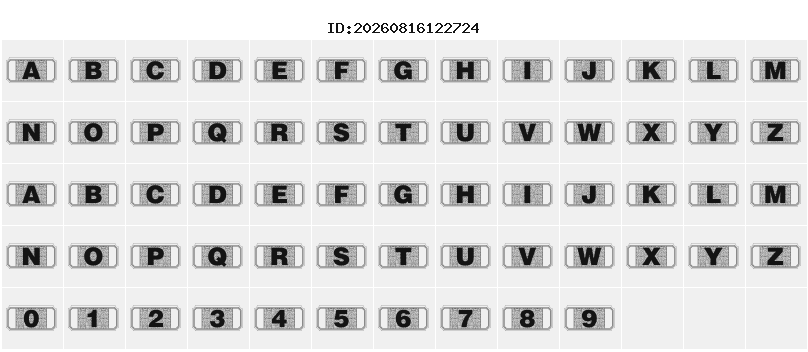
StagTickets Preview
• Font Name: StagTickets
• Full Font Name: StagTickets
• Copyright: StagTickets by J.F.Y.Daniel Gauthier - GautFonts
About StagTickets.ttf
StagTickets.ttf is a modern, elegant sans-serif font designed for ultimate readability and visual harmony. Perfect for branding, headlines, web design, and print materials.